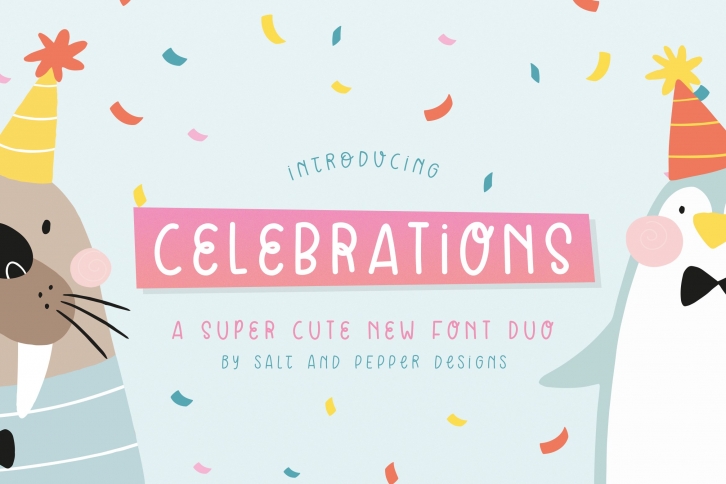
Celebrations Duo is a great font that was designed by Salt and Pepper Designs. Imagine the amount of combinations you can create using this font! The archive is 1.39 MB and it was released on June 9, 2021. Celebrations Duo looks beautiful on wedding invitations, greeting cards, logos, posters, labels, t-shirt designs, logos, business cards and is perfect for use in ink or watercolor works, fashion, magazines, packaging and food menus, children's books and more!